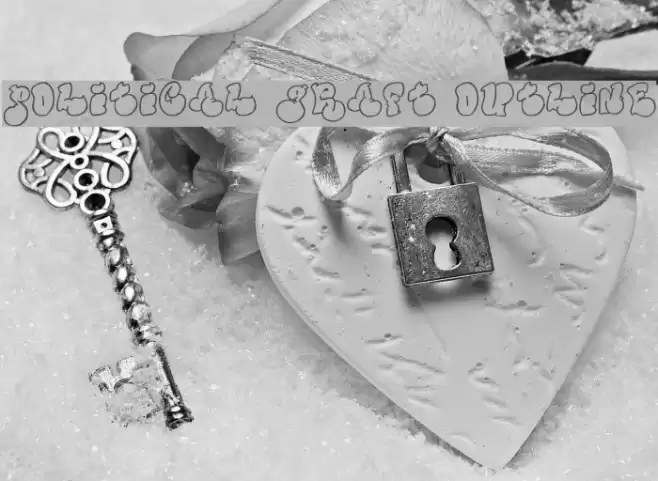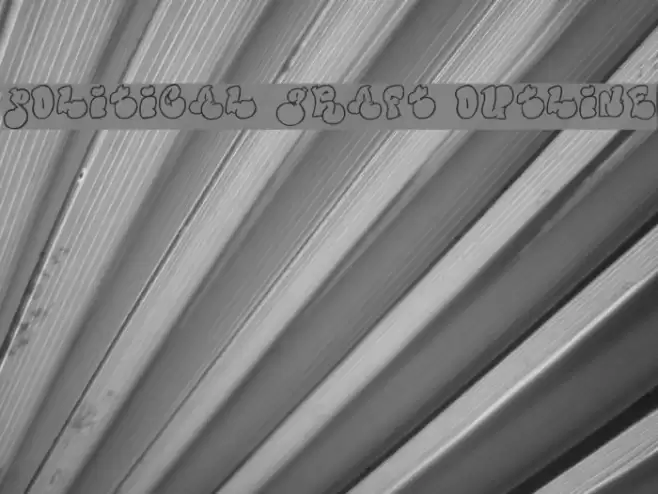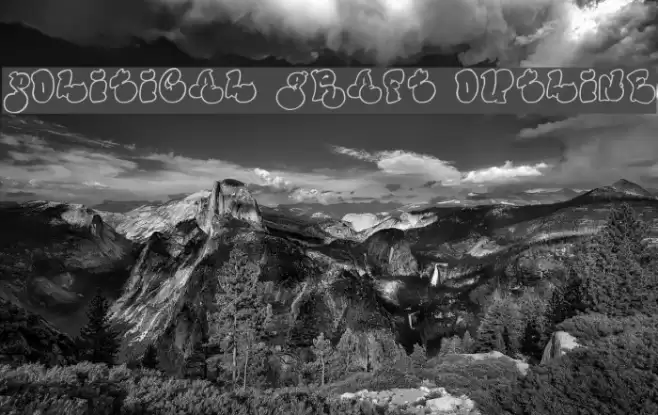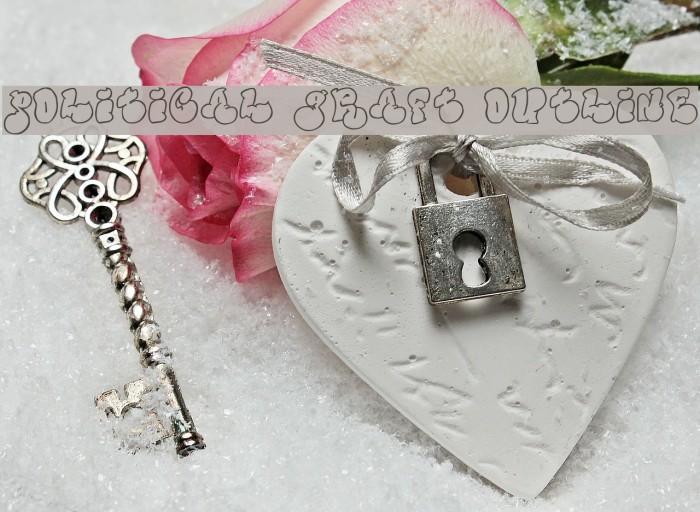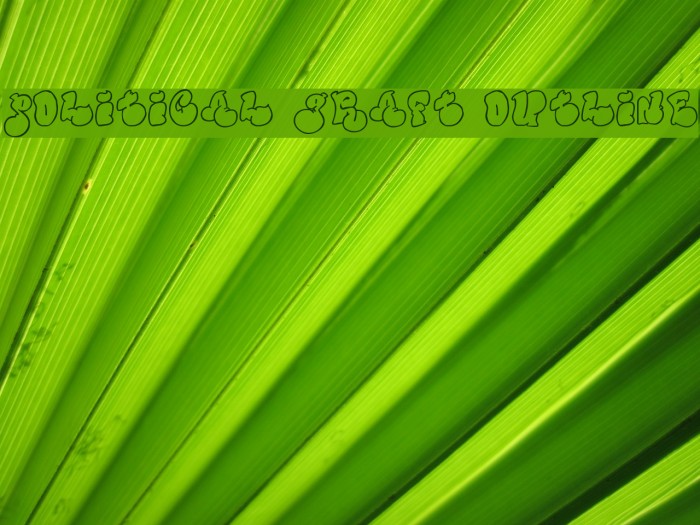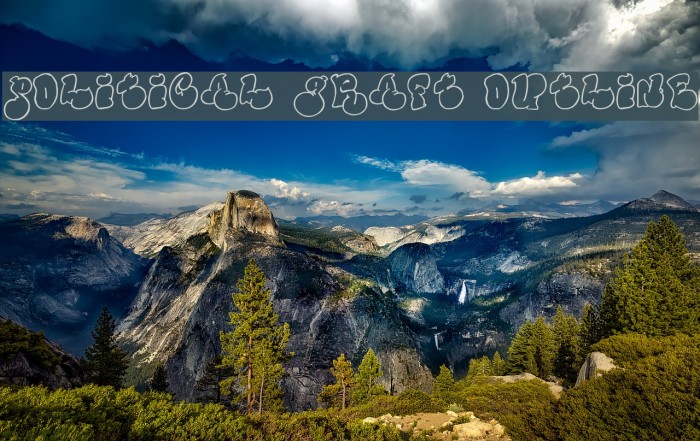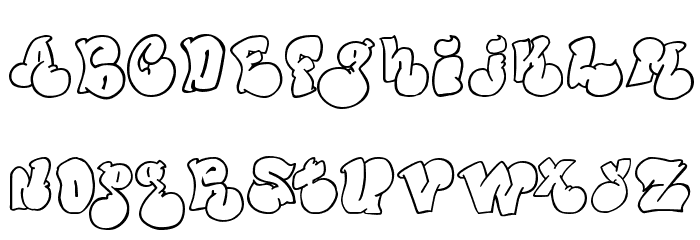
Political Graft Outline Font
Political Graft Outline Description
This font features a playful and bold outline style, characterized by its bubble-like, rounded forms. The letters are outlined, creating a hollow effect that adds a sense of depth and dimension. The uppercase and lowercase characters maintain a consistent style, with exaggerated curves and a whimsical appearance. The font's unique design makes it stand out, offering a fun and creative vibe. It includes a full set of uppercase and lowercase letters, numbers, and a selection of special characters, all maintaining the same outlined, bubbly aesthetic. This font is ideal for projects that require a lively and eye-catching typeface.
A playful, bold outline font with bubble-like, rounded forms from Graffiti fonts.
- Proposed Projects: Perfect for children's book covers, playful posters, party invitations, and branding for fun-oriented products.
- Overall Style: Playful, Whimsical
- Use Case: Headlines, Posters, Branding